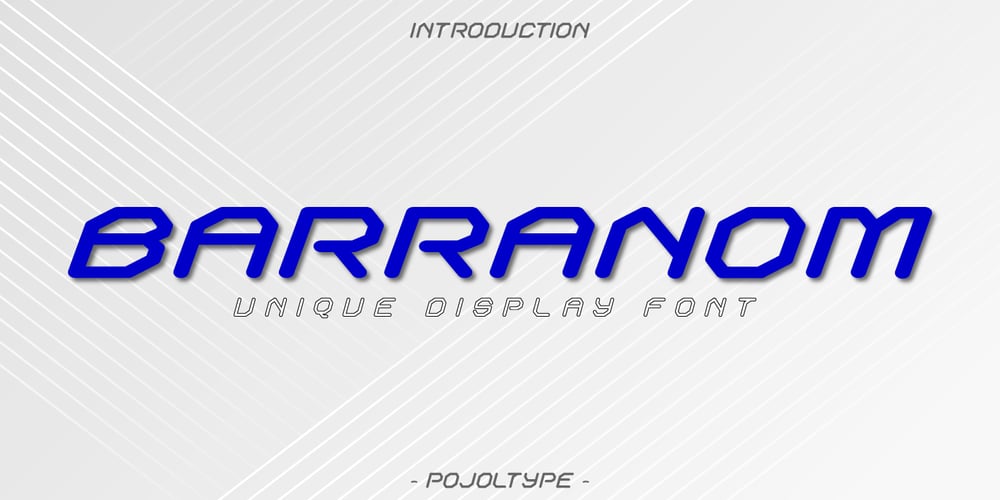
Barranom
Barranom font
Barranom Font Family was designed by Fauzul Azmi and published by PojolType. Barranom contains 1 styles and family package options. This Barranom font is great for logos, branding, apparel and headlines.This typeface encapsulates a wide variety of nuances, apparently, opposing elements like technology with friendly angular shapes.